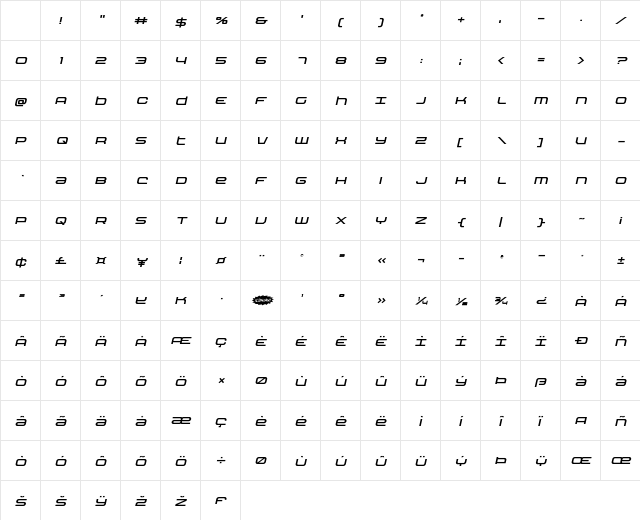
Nextwave is a composed and adaptable typeface that performs quietly and consistently across a wide range of design contexts. The slanted form adds forward momentum and visual energy.